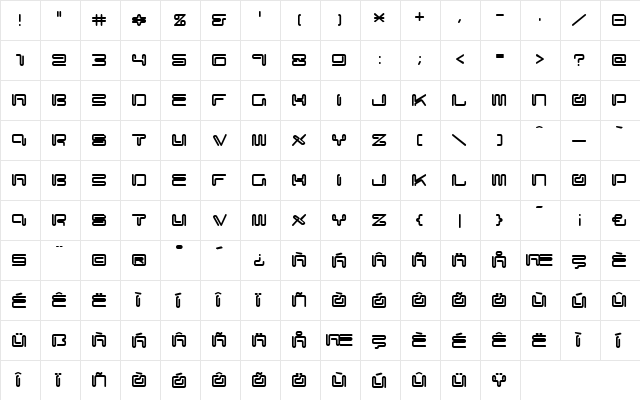
CyberMonkey Regular
Design Context for CyberMonkey Typeface
CyberMonkey channels digital-age aesthetics through its sharp, structured letterforms — ideal for brands that want to signal innovation.
Pro Tip: Try CyberMonkey with generous letter-spacing in UI labels and navigation — the geometric forms benefit from room to breathe.